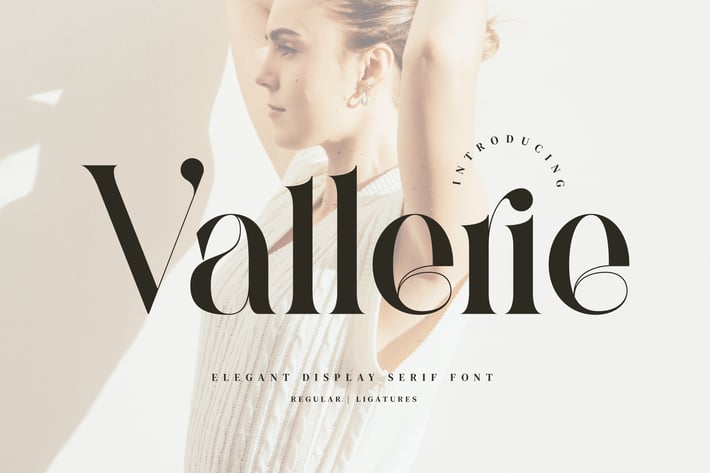
Valleri Elegant Serif Font
Vallerie Stylish Ligature Typeface, inspired by the famous minimalist logo perfect for the purposes of designing templates, brochures, videos, advertising branding, logos and more.